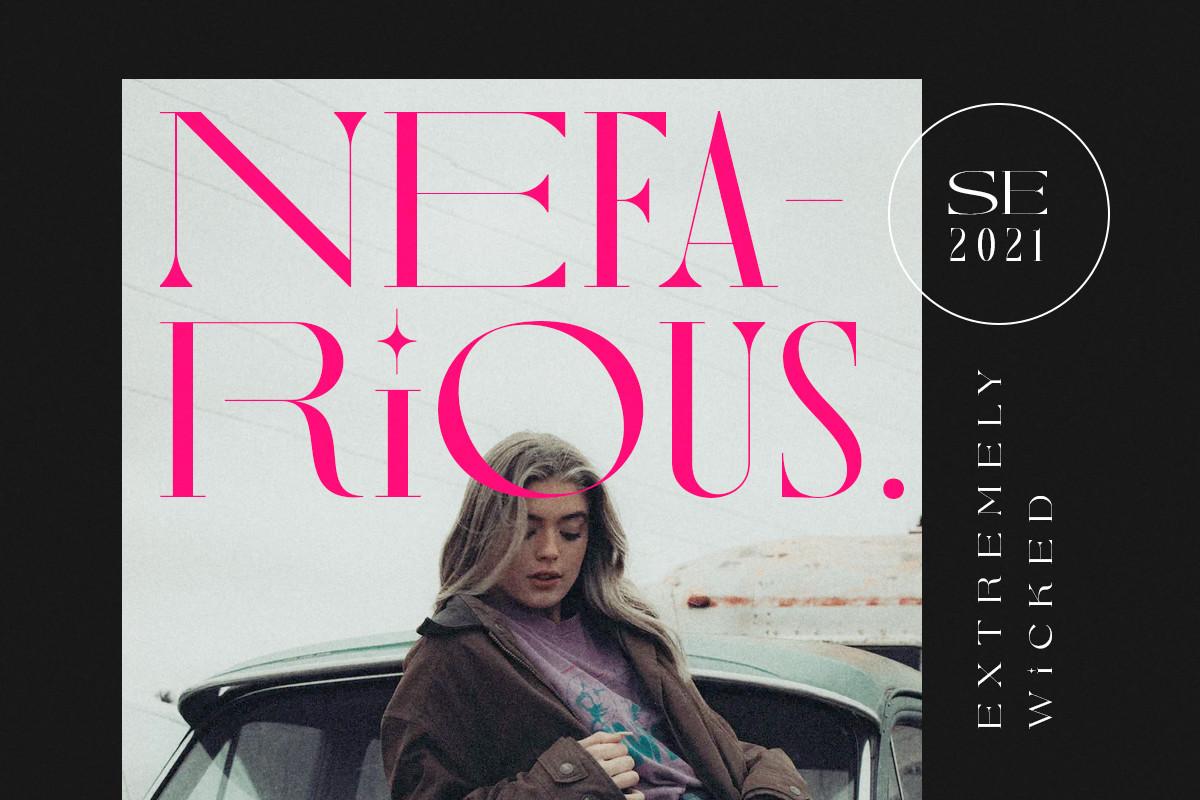
Nefarious Font Description
Nefarious is a delicate and elegant serif font. It will elevate a wide range of crafting ideas, from cards, to branding, labels and much more. Add it confidently to your favorite creations and let yourself be amazed by the outcome generated.